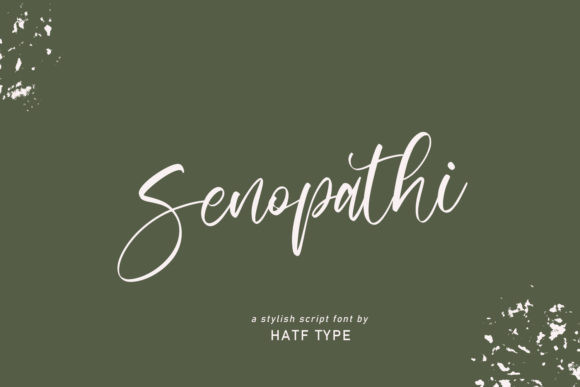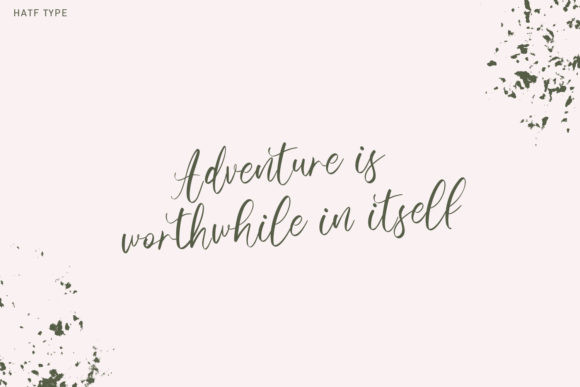
Senopathi Font
Senopathi feels equally charming and elegant. This stunning handwritten font is a stylish homage to classic calligraphy. It features a varying baseline, smooth lines, gorgeous glyphs and stunning alternates.